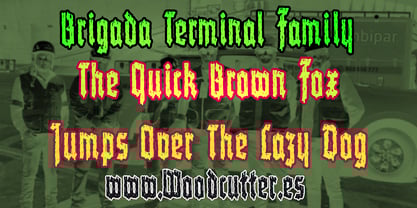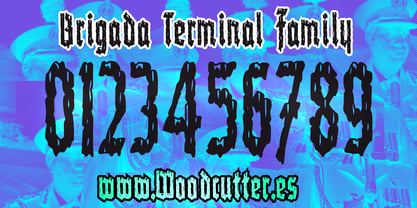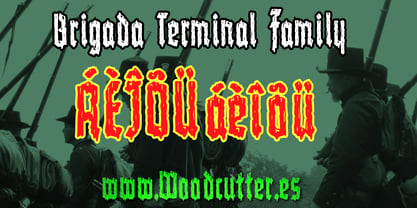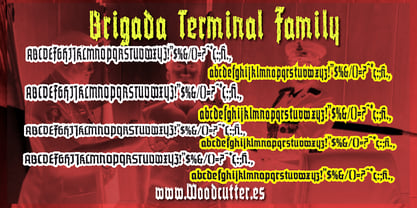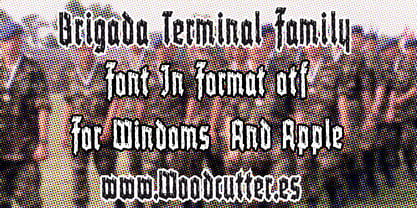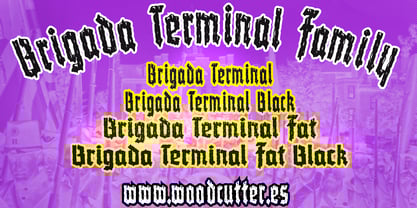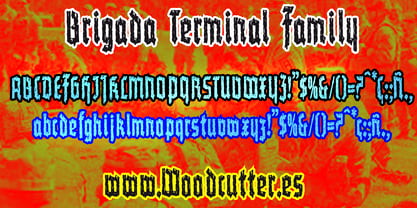
Brigada Terminal
von Woodcutter
Die Schriftfamilie Brigada Terminal wurde von Jordi Manero entworfen und von Woodcutter veröffentlicht. Brigada Terminal enthält 4 Stile und Familienpaketoptionen.
The “Brigada Terminal” type family consists of four fonts in uppercase and lowercase letters, all with full accent support, that channel a raw medieval gothic aesthetic, full of intensity and visual strength. The main style, Brigada Terminal, features torn, jagged letterforms, as if eroded by time or battle. Its irregularity and distressed design evoke old manuscripts or medieval war banners. This typeface has a strong personality, ideal for titles in editorial design, alternative music graphics, horror cinema, or video game artwork.
Brigada Terminal Black keeps the same letter structure but fills it solidly, increasing legibility and weight while maintaining the dramatic gothic tone. Brigada Terminal Fat expands the strokes, giving the type a heavier rhythm and a more dominant visual texture. Finally, Brigada Terminal Fat Black combines wide structure with solid fills, resulting in a font that is bold, imposing, and visually impactful.
This family allows for dynamic use of weight and texture within a consistent gothic universe, offering versatility without compromising identity. “Brigada Terminal” is not just a font; it’s a powerful expressive tool packed with visual energy and character.